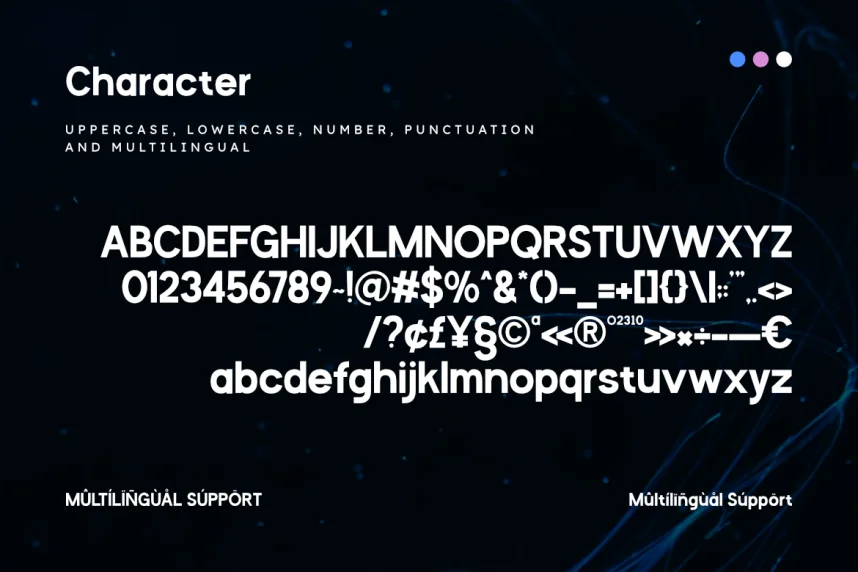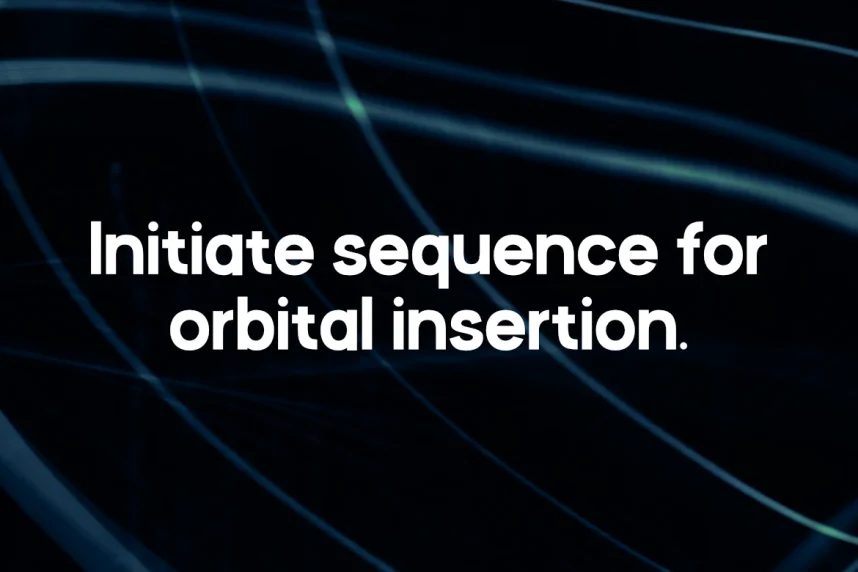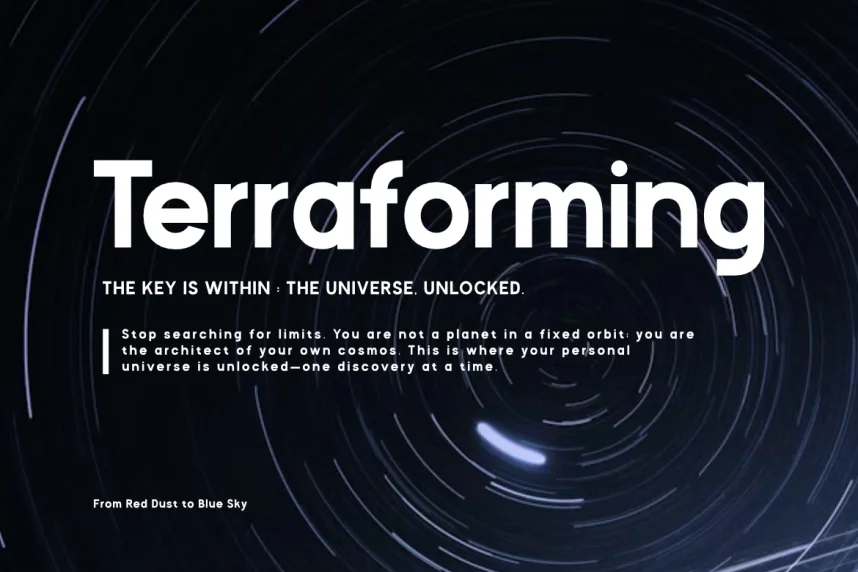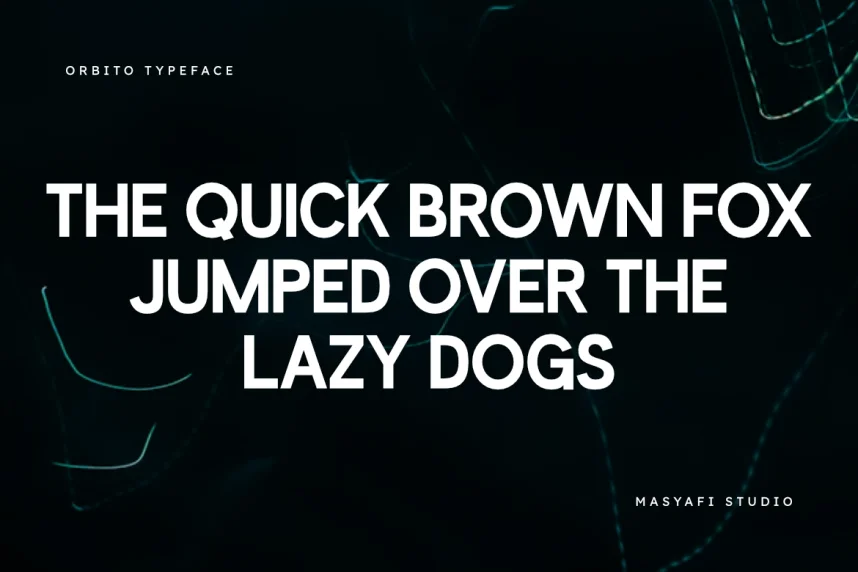
Orbito Font is a sans-serif typeface developed to improve readability and structure in web design, UI layouts, and branding systems. Designers often need geometric fonts that stay clear on screens while supporting headings, navigation labels, and body text.
Orbito features clean geometric letterforms, even stroke widths, and open apertures. The spacing and x-height are optimized for screen use, which helps maintain clarity across devices. The font usually includes multiple weights, numerals, punctuation, and multilingual support, making it suitable for both digital and print workflows.